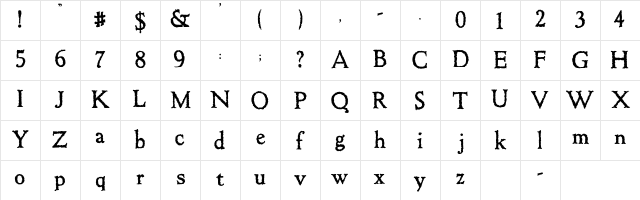
Design Context for 2Peas Chestnuts
2Peas Chestnuts is a composed and adaptable typeface that performs quietly and consistently across a wide range of design contexts.
Pro Tip: Use 2Peas Chestnuts in both headline and body roles to test its range before committing to a single application.